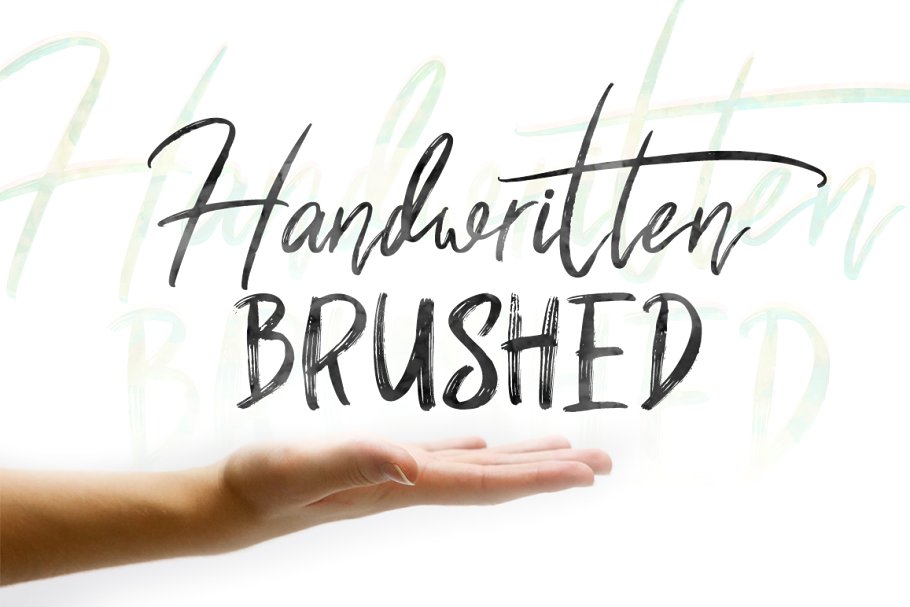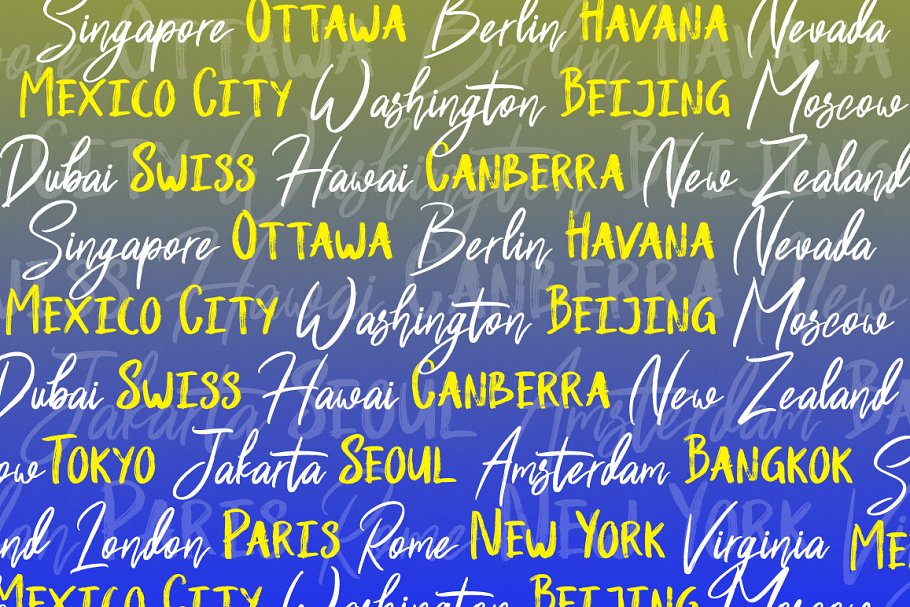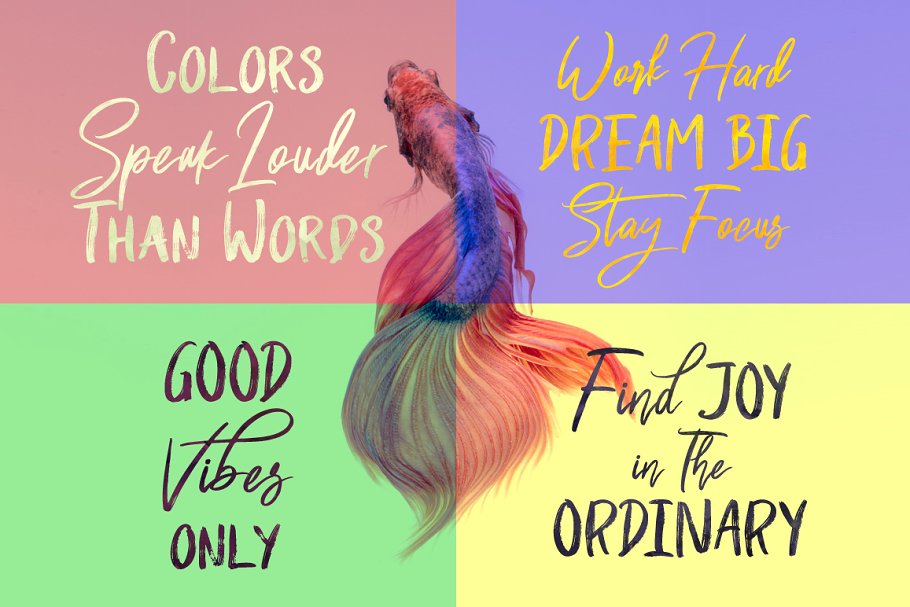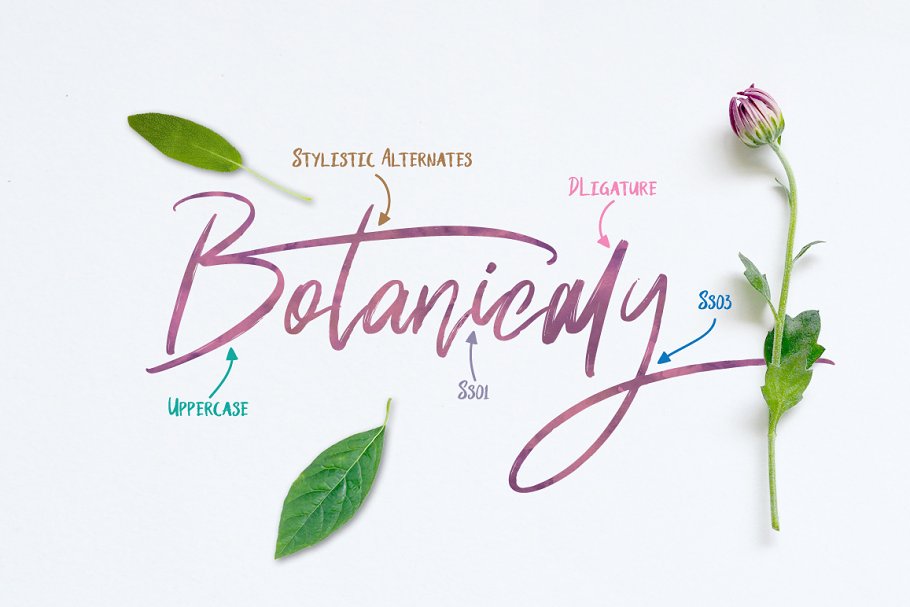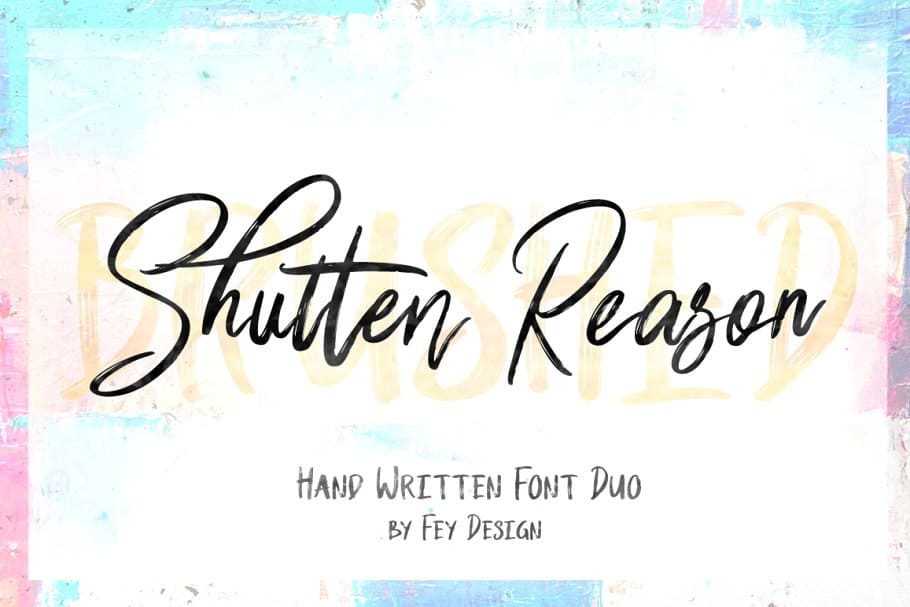
Shutten Reason Font Duo
Shutten Reason – a new handwritting font duo by FeyType. Shutten Reason is font duo handwritten script font and sans with handlettering Brush Style. Suitable for design, element design, wedding, event, t-shirt, logo, badges, sticker, and awesome work, etc…